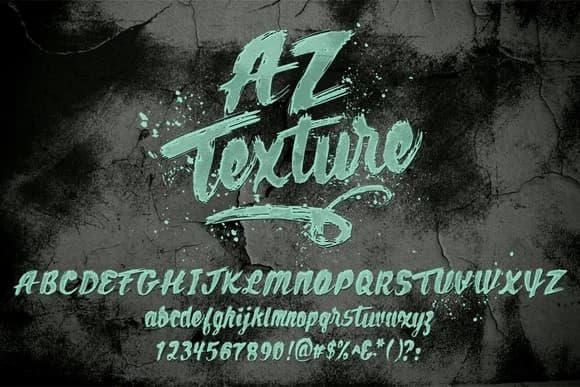
About AZ Texture Font
AZ Texture Font by Artistofdesign is a hand-lettered script with a richly textured surface that brings organic warmth to contemporary design work. The typeface channels the authenticity of natural brushstrokes while maintaining the refined control of a digital font, making it equally suited to polished branding and casual creative expression. This dimensional quality sets it apart from smoother script options, offering distinctive personality without requiring hand illustration. This script works particularly well for wedding invitation suites, where its surface detail enhances formal stationery without sacrificing readability across print sizes. The texture is equally compelling on Etsy product labels and boutique skincare packaging, where brands need to convey handmade quality and artisanal care. Designers also turn to AZ Texture for custom vinyl decals and DIY craft signage, applications where the tactile appearance grounds personalized work in authentic craftsmanship. Its dimensional aesthetic naturally suits handmade product photography and lifestyle branding, giving your visual identity a distinctly artisanal edge. The font includes extended language support and multiple glyph variations, ensuring flexibility across diverse design contexts and creative projects. It integrates seamlessly with Adobe Illustrator, Photoshop, and Canva, giving you complete workflow compatibility across your entire design toolkit. Discover AZ Texture Font on Creative Fabrica and bring this handcrafted quality to your next project.
AZ Texture Font is a script font that shines as a display or heading face. Pair it with a clean sans-serif or serif font for body text β the contrast creates a clear hierarchy while the two styles stay balanced and easy to read.